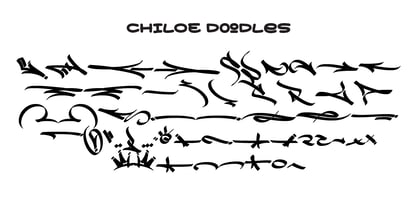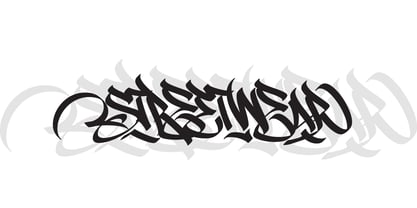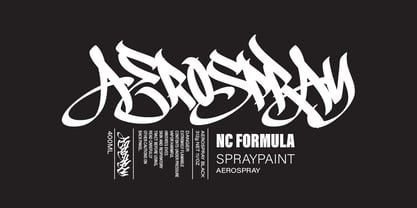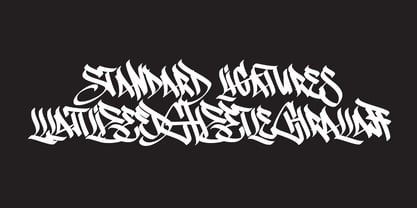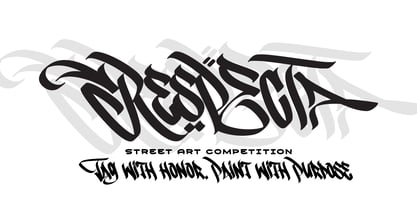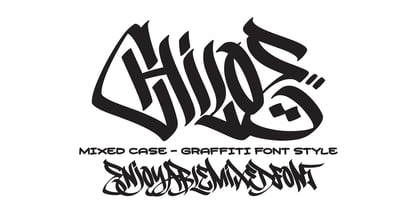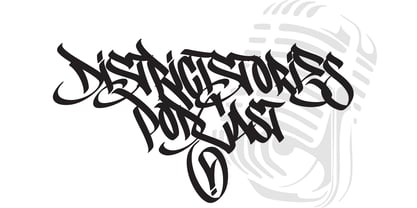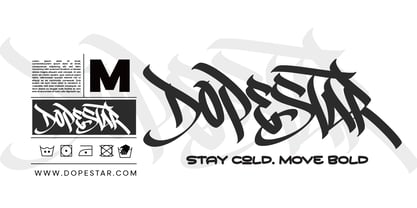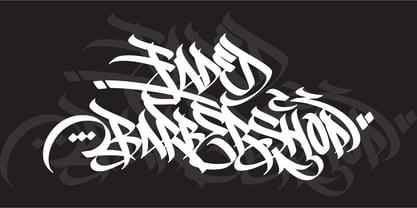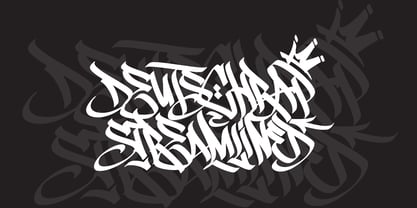
Chiloe
Say hello to Chiloe, a bold graffiti-style font straight outta the streets. Inspired by flat marker tags and raw handstyle energy, Chiloe’s all about that mixed-case flow, blend uppercase and lowercase however you vibe with it, no rules, just style.
We hooked it up with dope alternates and some wild ligatures, so your letters can hit different every time. Plus, we threw in a bunch of fresh doodles to drop around your text. Perfect for adding flavor or balancing out those heavy spots in your design.
This font’s made for creators who live in the culture, urban fashion, hip-hop scenes, streetwear drops, branding, posters, you name it. Chiloe brings that raw, young, street-smart energy that pops off the page.
Keep it loud. Keep it real. That’s Chiloe.
MMMA Creative is an independent type foundry based in Aceh, Indonesia, founded by Muhammad Mevlana Maliq Azizi. With a love for expressive letterforms, MMMA Creative focuses on creating display, graffiti, and handwriting fonts that carry a personal and creative touch.Inspired by urban culture and the freedom of visual expression, each typeface is crafted with care—whether it's bold graffiti styles or natural handwriting. MMMA Creative is a place where letters are shaped by passion, built with a DIY spirit, and made to connect through character.